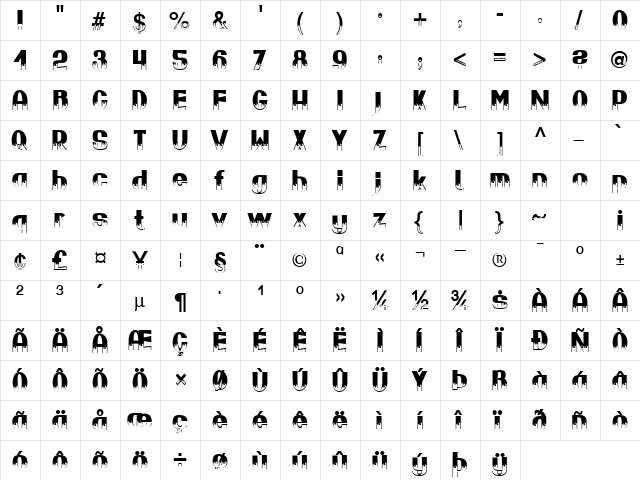
Popblood Becker Normal
Design Context for Popblood Becker Typeface
Popblood Becker carries an unsettling edge — its distorted letterforms are built to unsettle, perfectly suited to horror, Halloween, and dark creative work.
Perfect for anything that needs to unsettle — game titles, horror branding, and macabre invitations.
Font Pairing: Pair with a clean neutral sans-serif for body copy to let Popblood Becker's character lead without overwhelming the composition.
Pro Tip: Use Popblood Becker at larger display sizes for maximum impact. Consider generous tracking to let the disturbing character of each letterform breathe.